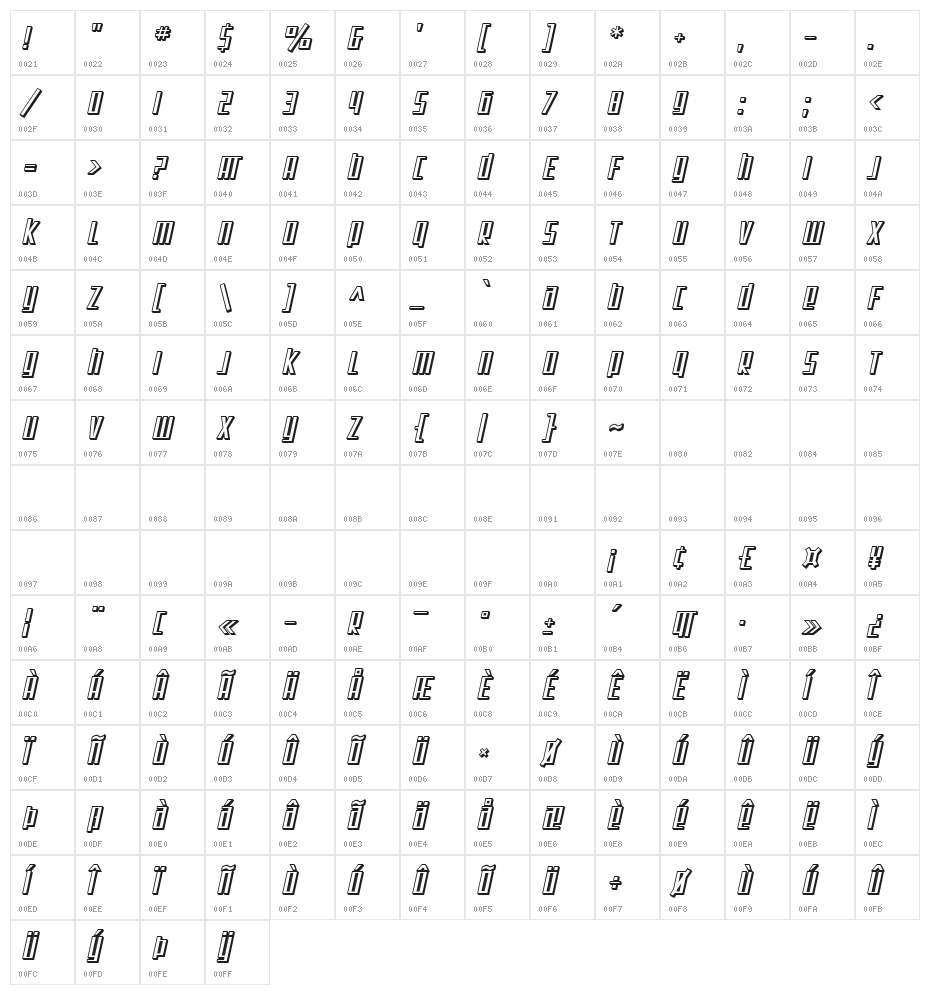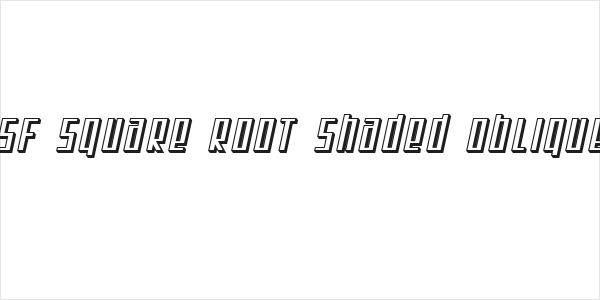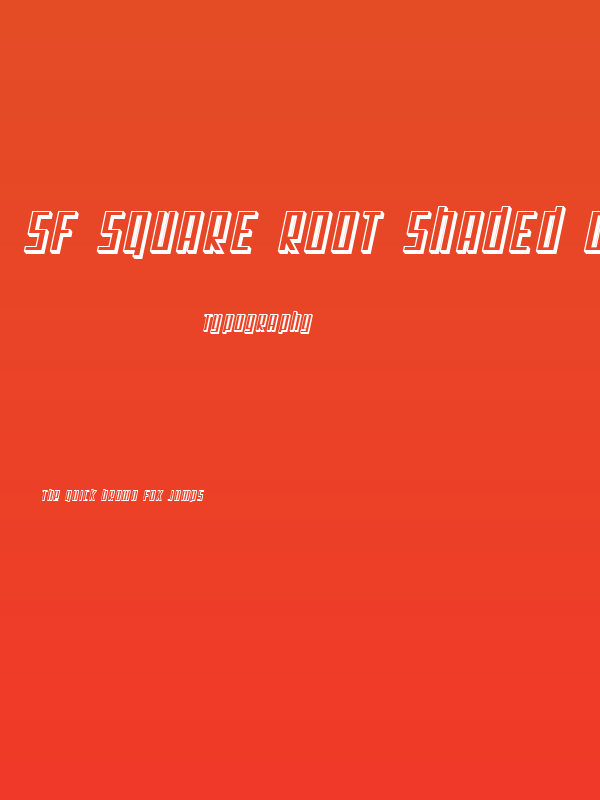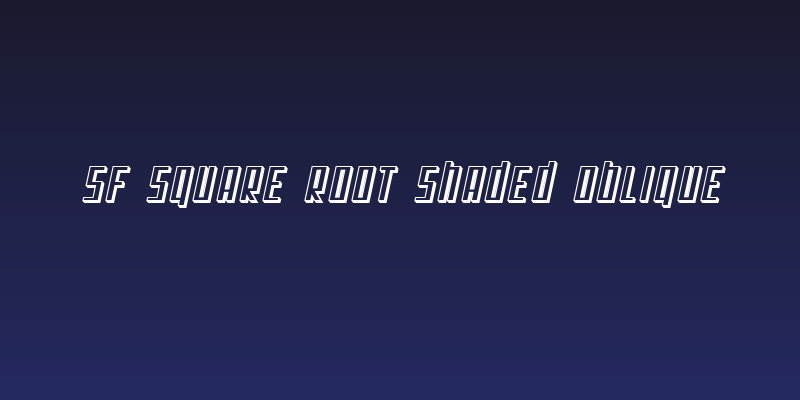
SF Square Root Shaded Oblique Font
SF Square Root Shaded Oblique Description
This font features a bold, geometric design with a distinct oblique slant, giving it a dynamic and modern appearance. The characters are outlined with a shaded effect, creating a three-dimensional look that adds depth and interest. The uppercase and lowercase letters maintain a consistent style, with sharp angles and clean lines. Numbers and special characters are designed to match the overall aesthetic, ensuring a cohesive appearance across all text. The font's unique style makes it ideal for projects that require a strong visual impact.
| Proposed Projects | Ideal for posters, logos, video game graphics, and futuristic designs. |